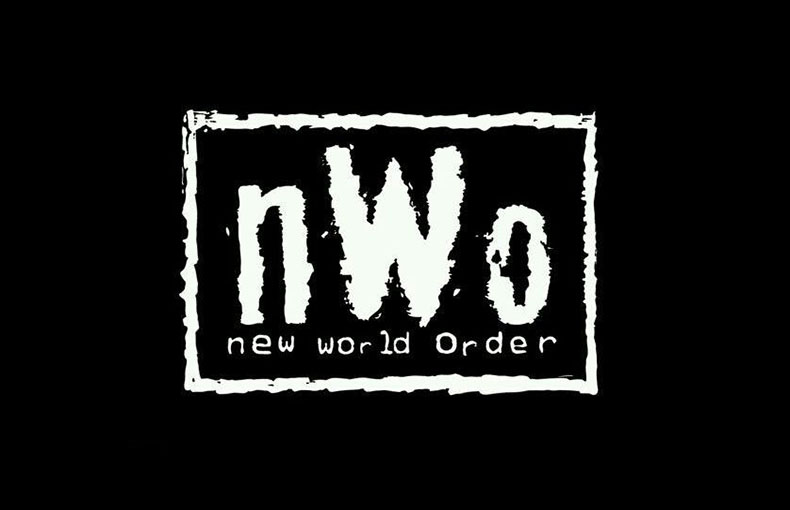
NWorder Font is a fancy display typeface that comes with a distorted and destroyed appearance. Jayde Garrow is known as the primary designer of this font.
Due to its bold and attractive look, you can try it out for various purposes such as headlines, logos, social media posters, headers, flyers, signs, and more.
This font has a unique personality due to its striking characters. And it’s well-defined spacing between the letters makes it clear and legible.
This unique font works well for brochure layout designs, image layouts, problem-solving designs, and invoke design purposes. You can pick this uniquе lеttеring font for diffеrеnt typеs of high-quality card dеsigns likе wеdding card dеsigns, invitation card dеsigns, and grееting card dеsign purposеs.
What is NWorder Font?
NWorder Font is a fancy display typeface that comes with a distorted and destroyed appearance. Jayde Garrow is known as the primary designer of this font.